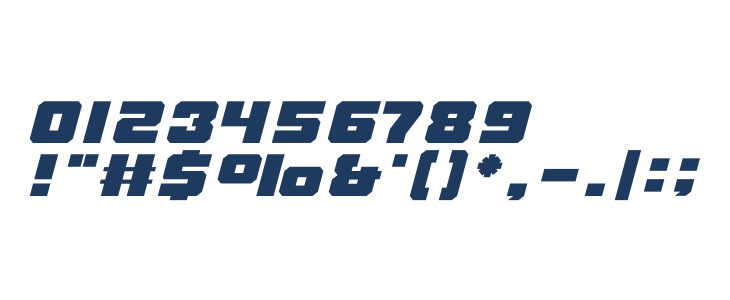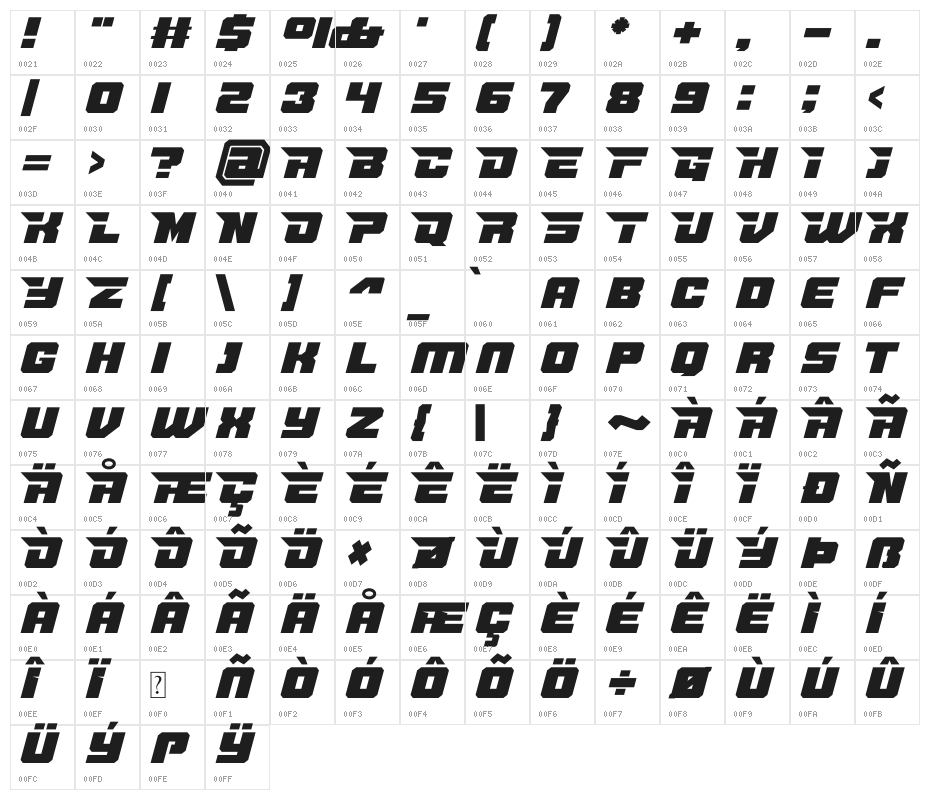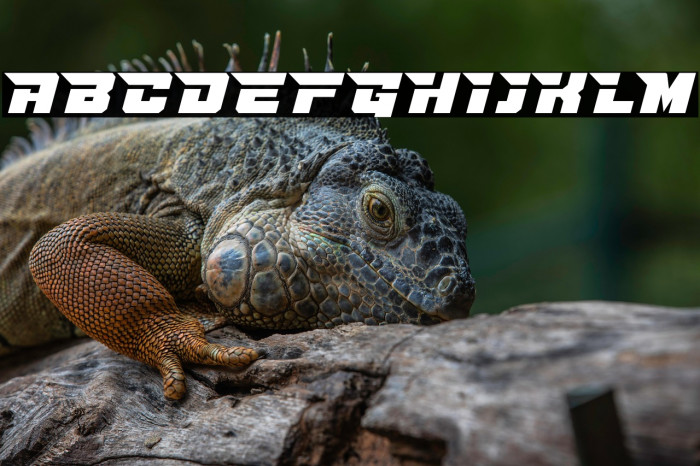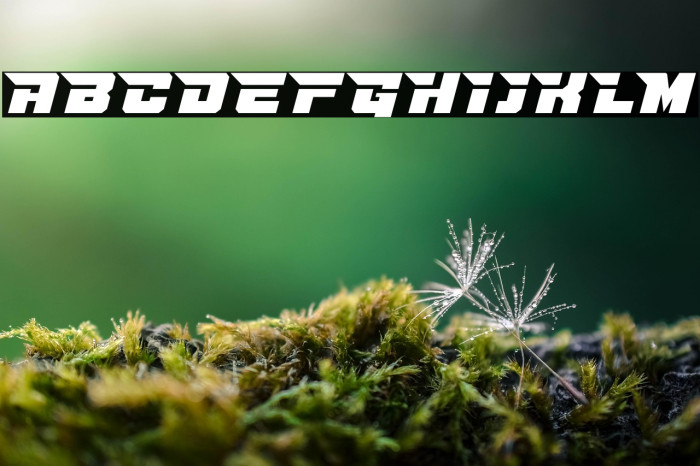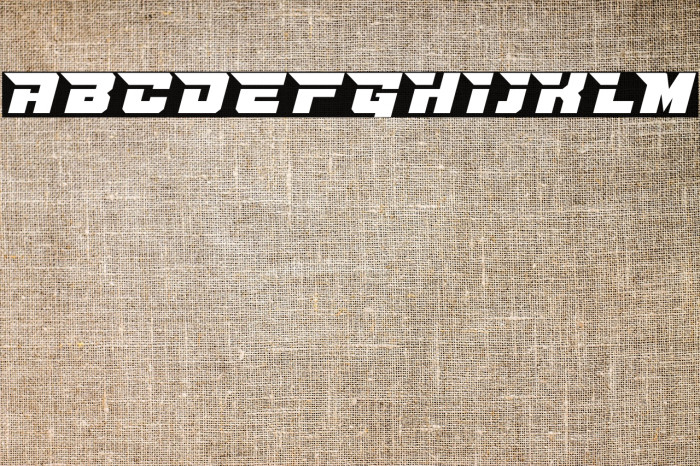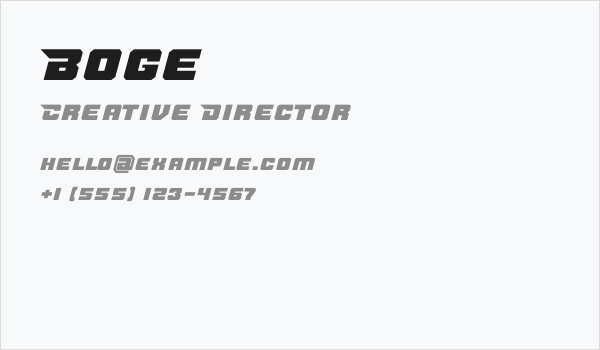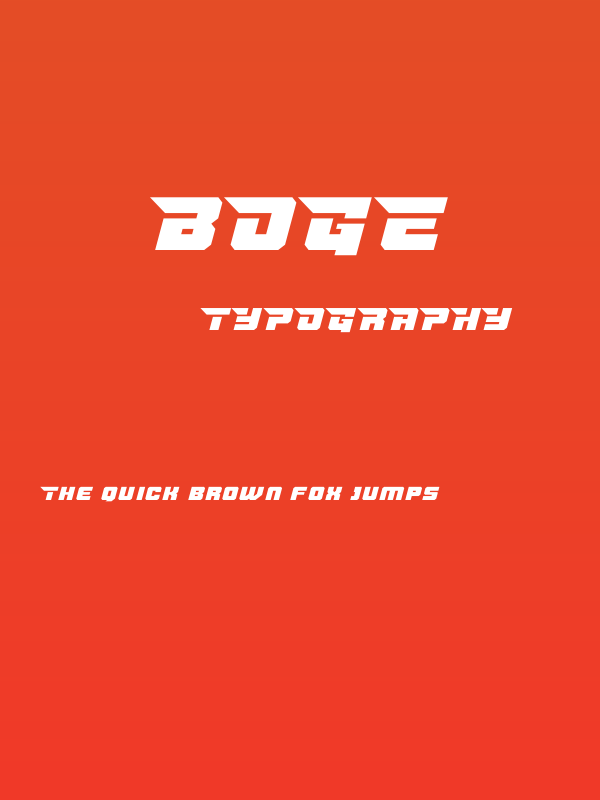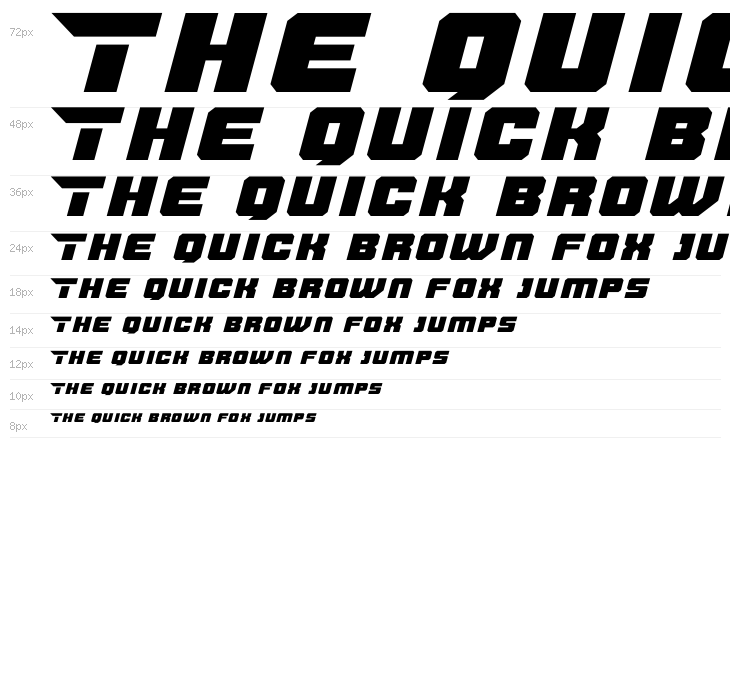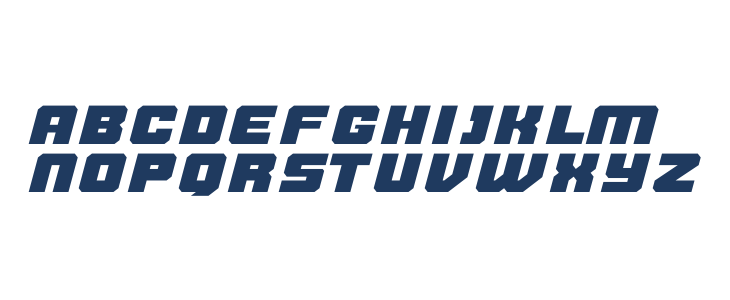
Boge Font
Boge Description
This font features a bold and dynamic design, characterized by its angular and geometric shapes. The letters are sharply cut, with a futuristic and aggressive style that conveys a sense of motion and energy. The uppercase and lowercase letters maintain a consistent style, with a slight slant that adds to the dynamic feel. The numbers and special characters are designed to match the boldness and angularity of the alphabet, making it suitable for attention-grabbing headlines and modern design projects.
| Proposed Projects | Ideal for sports branding, video game titles, sci-fi movie posters, and dynamic advertising campaigns. |